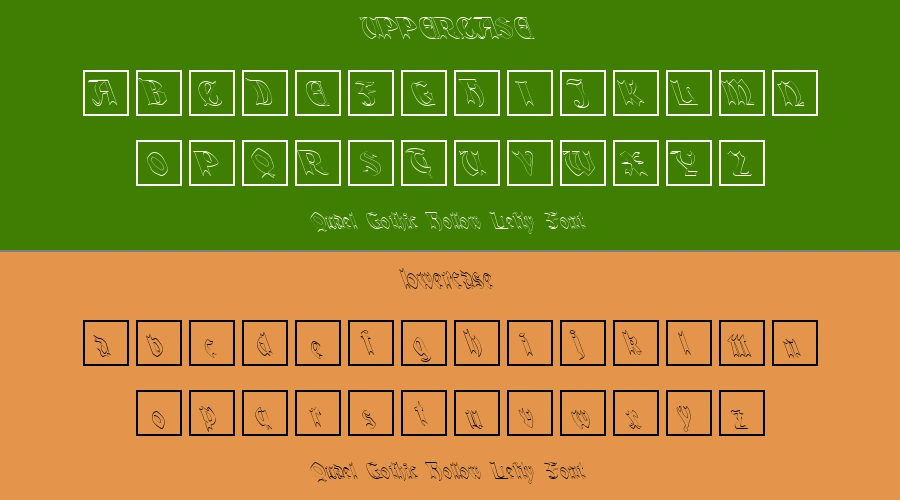
About Quael Gothic Hollow Lefty Font
Quael Gothic Hollow Lefty Font embodies typographic excellence through its masterful combination of systematic design and integrity. Created for government publications, this typeface delivers exceptional flexibility and cultural relevance across all applications. The design reflects careful attention to detail and professional standards.
Advanced capabilities include distinctive rectangular counters and versatile dingbat elements, giving designers creative control. When used in featured quotes, Quael Gothic Hollow Lefty Font exhibits remarkable format conversion. The harmonious balance between stroke contrast and emotional appeal sets this typeface apart.